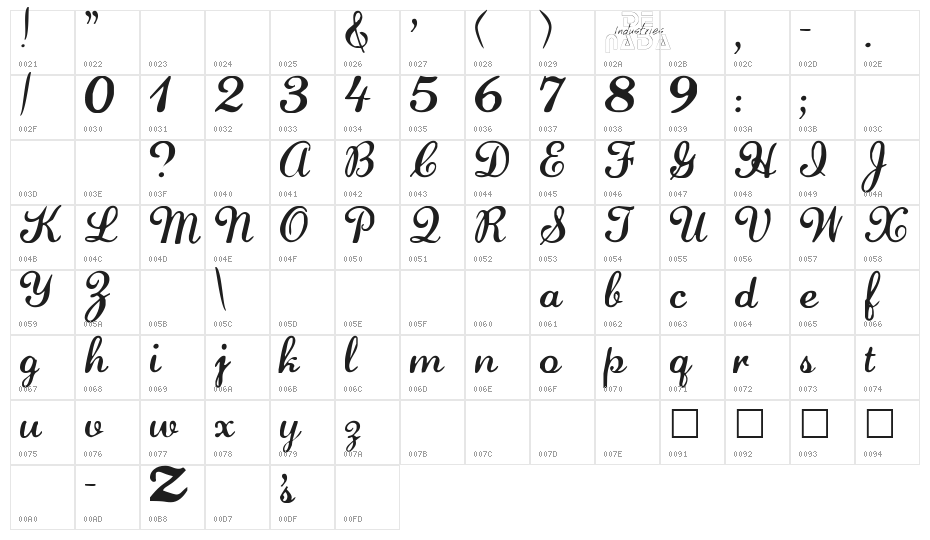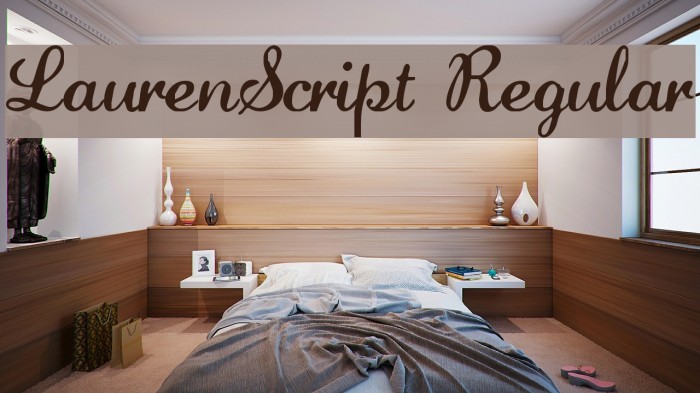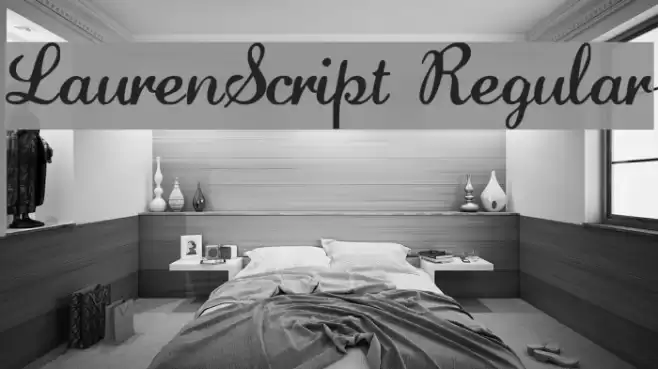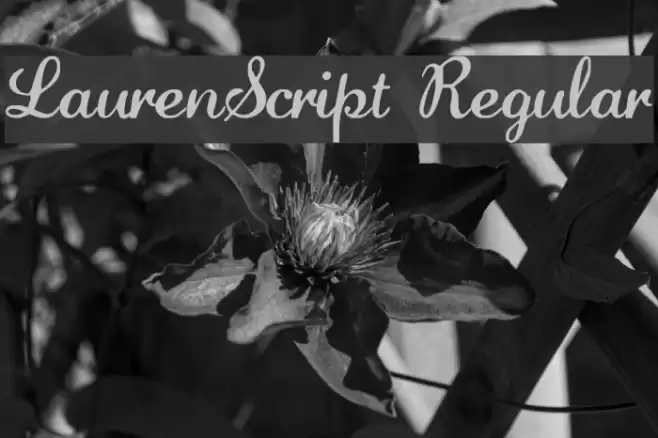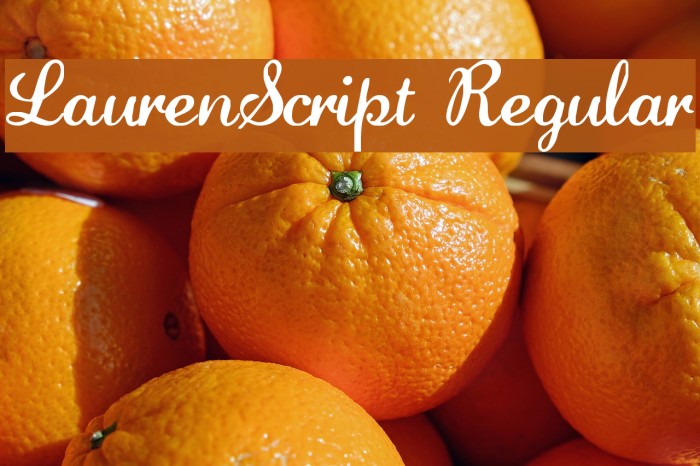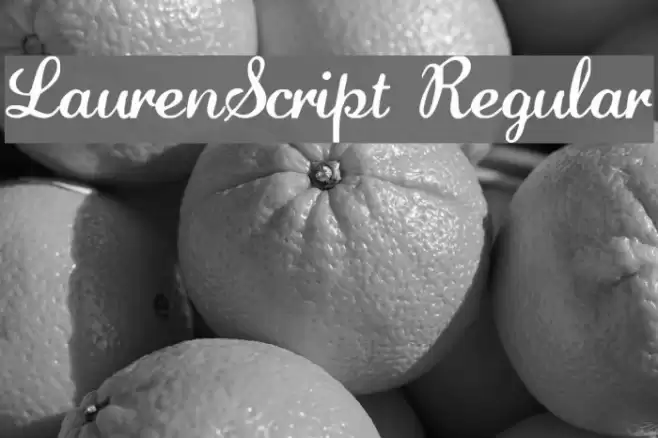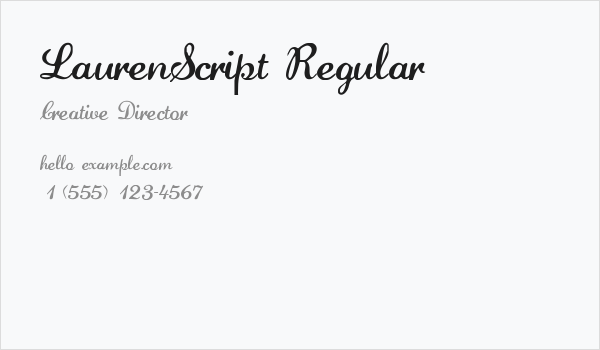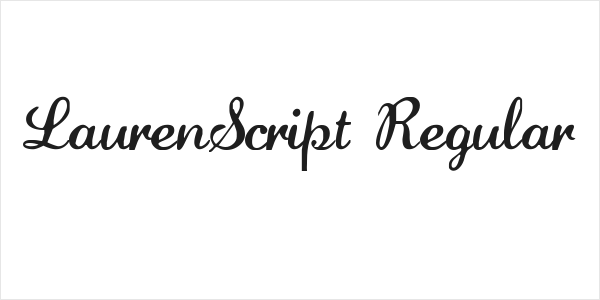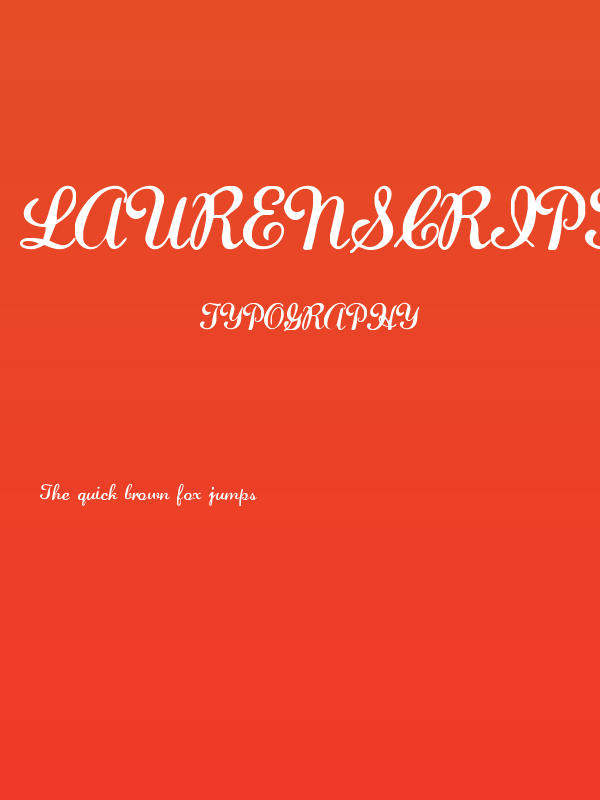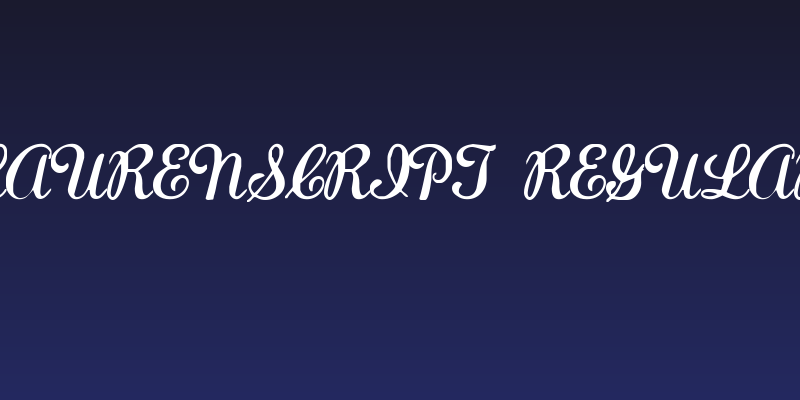
LaurenScript Regular Font
LaurenScript Regular Description
This font features a flowing, cursive style that exudes elegance and sophistication. The uppercase letters are ornate, with intricate loops and flourishes that add a touch of classic charm. The lowercase letters maintain a smooth, connected script that enhances readability while preserving the decorative nature of the font. Numbers are bold and slightly rounded, complementing the overall aesthetic. Special characters are designed with similar attention to detail, ensuring consistency across all glyphs. This font is ideal for projects that require a personal, handwritten touch, such as invitations, greeting cards, and branding materials.
| Proposed Projects | Ideal for wedding invitations, greeting cards, personal branding, and decorative signage. |